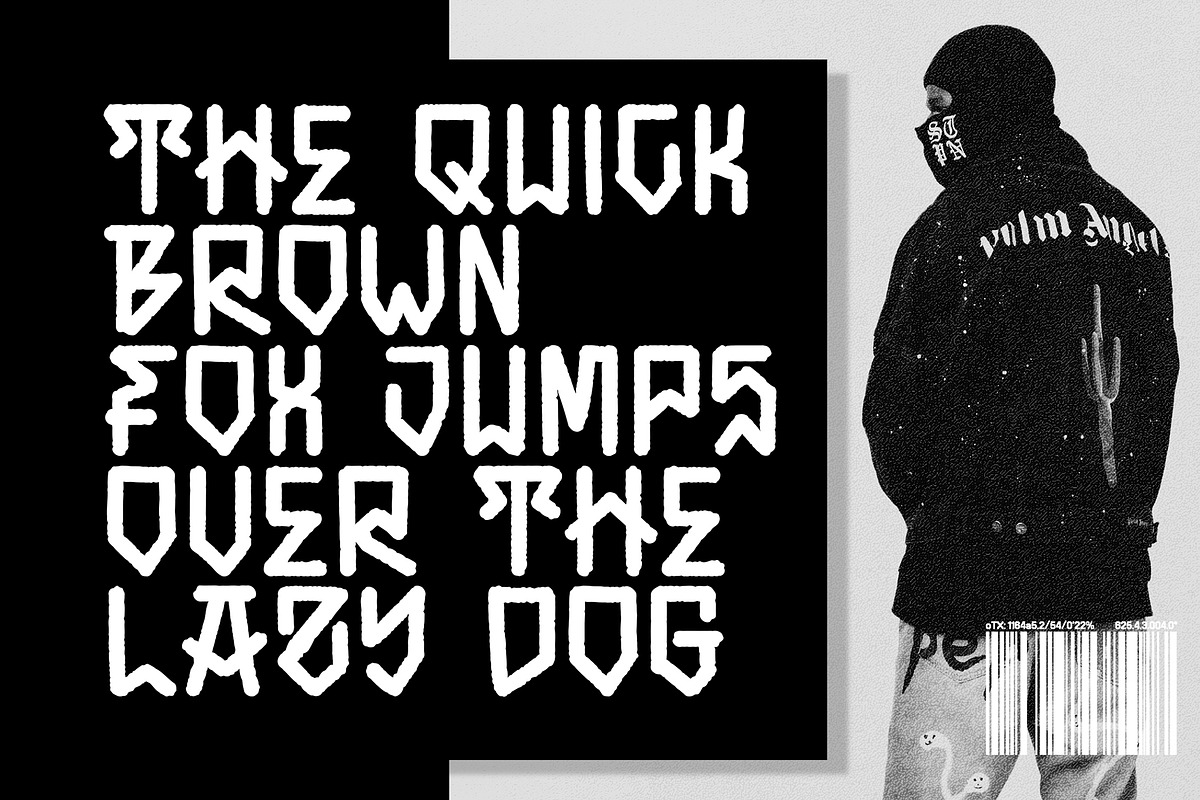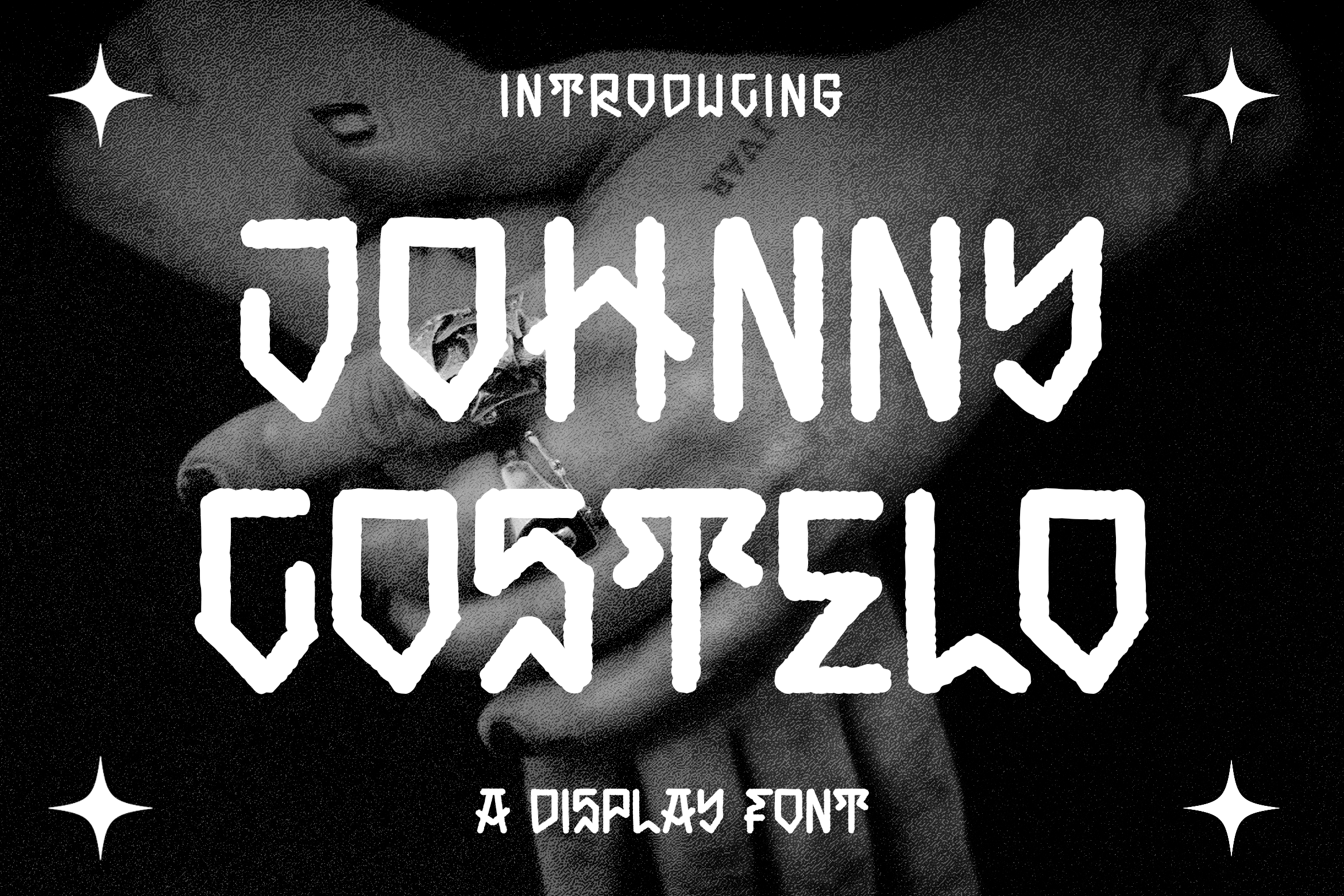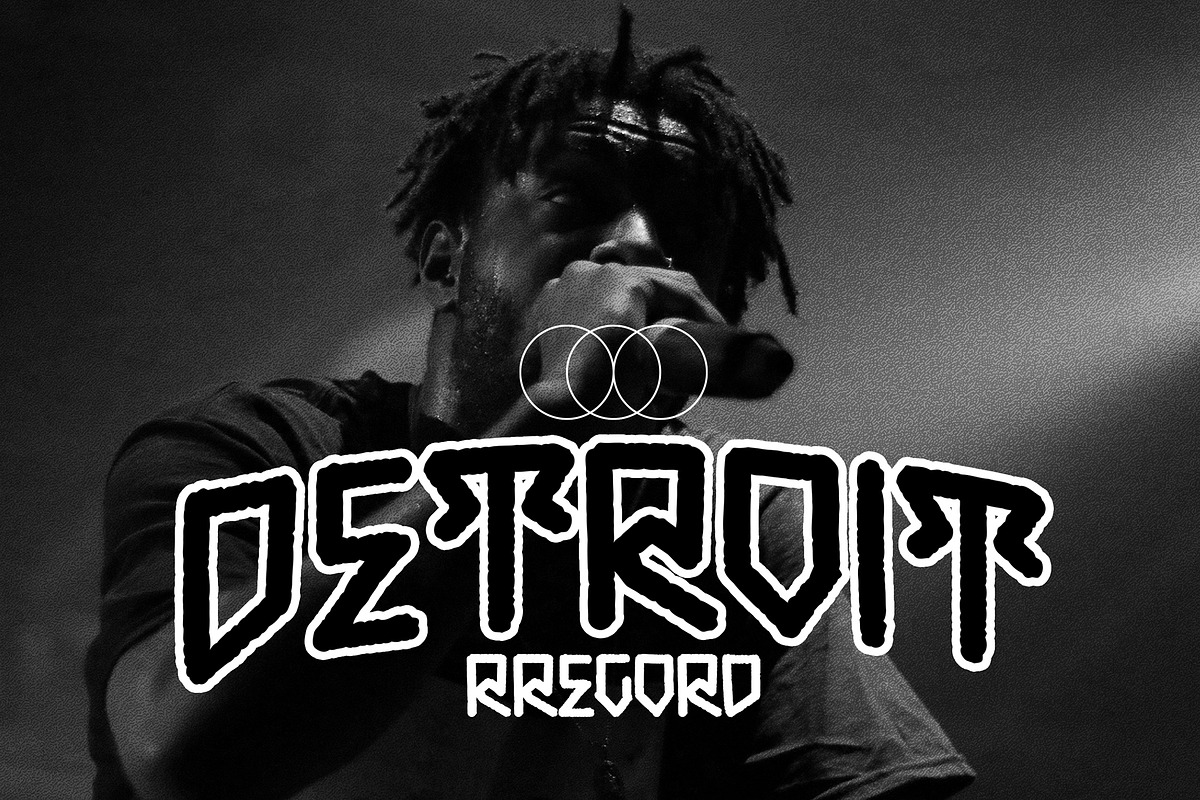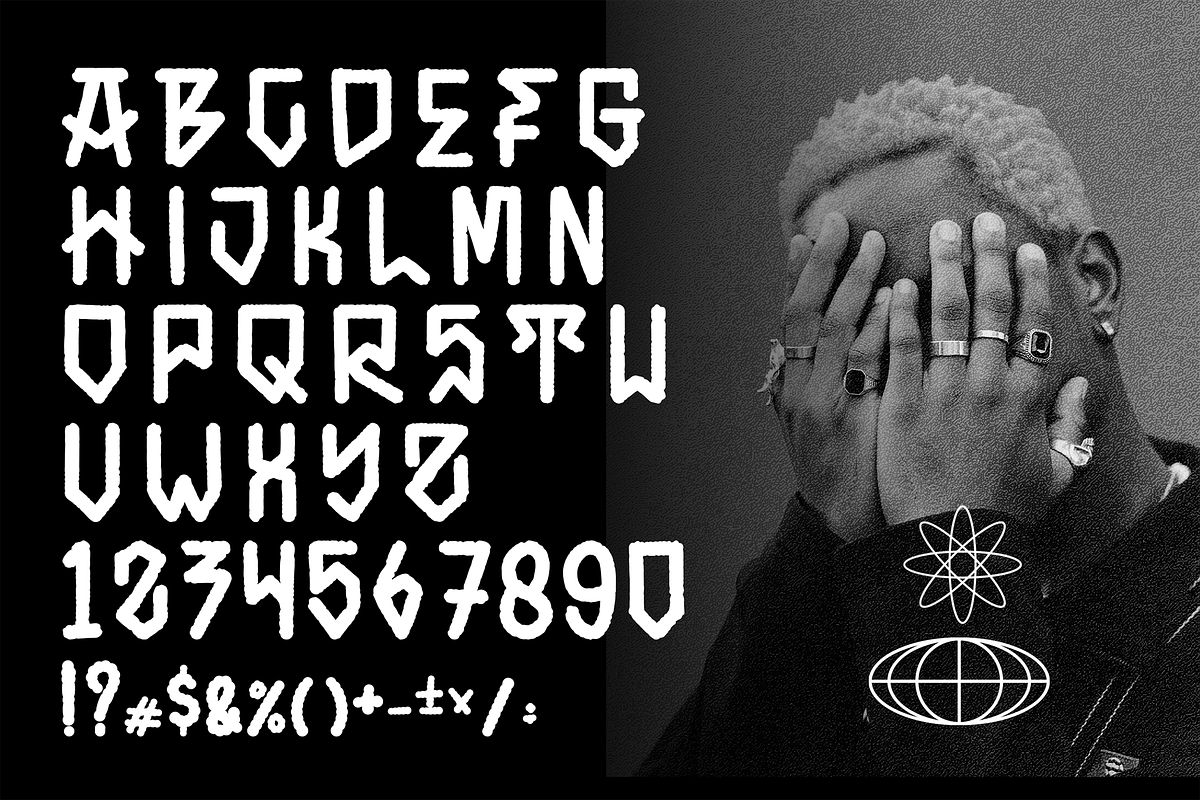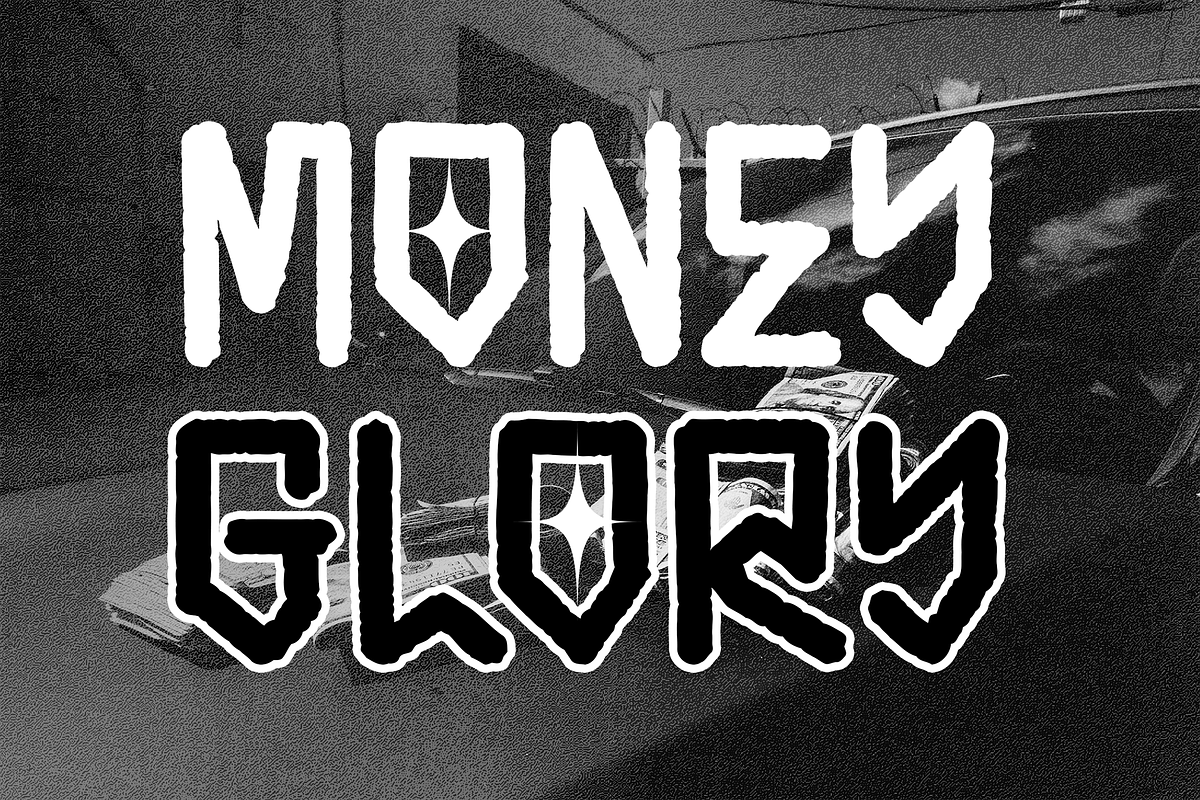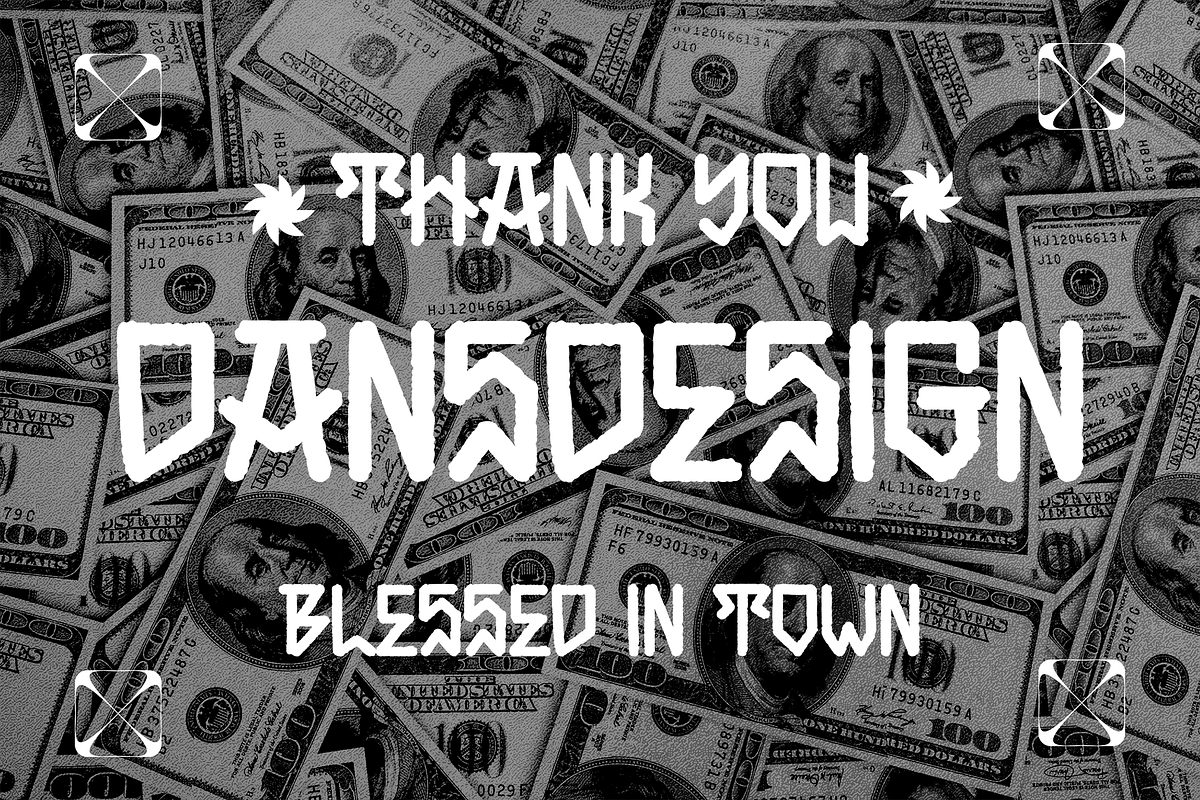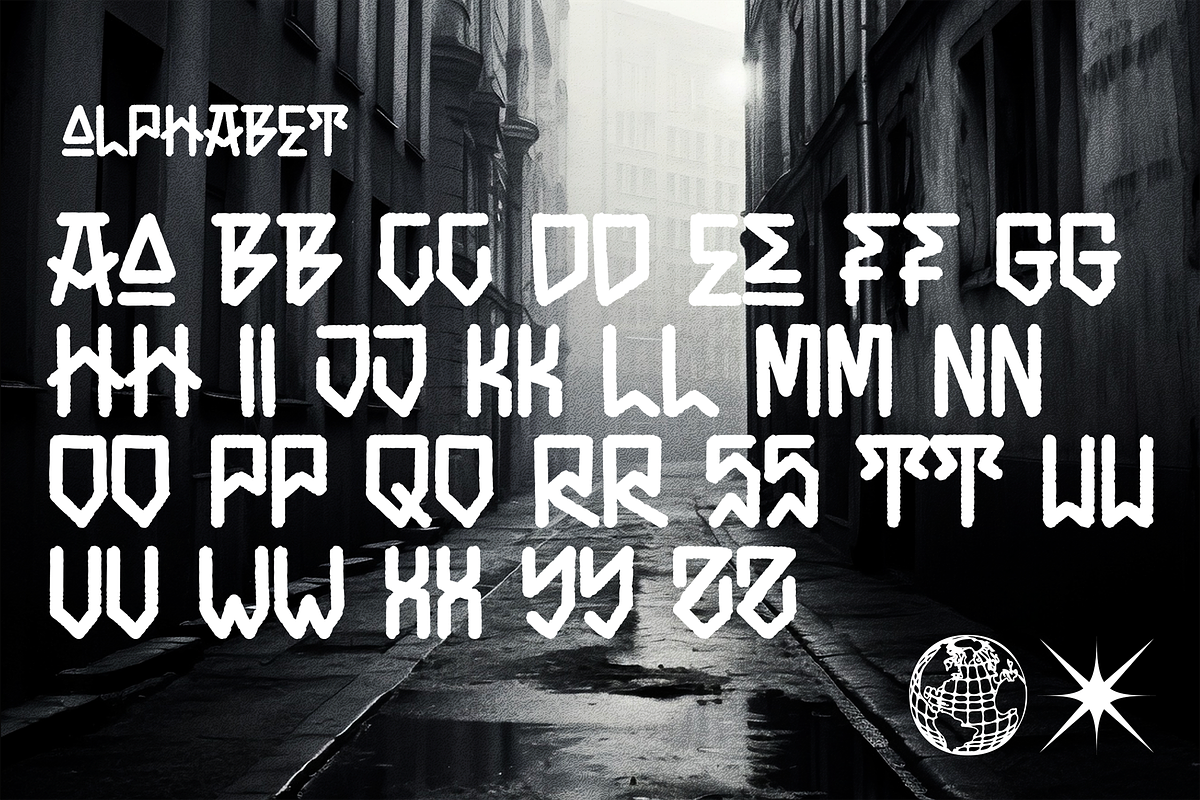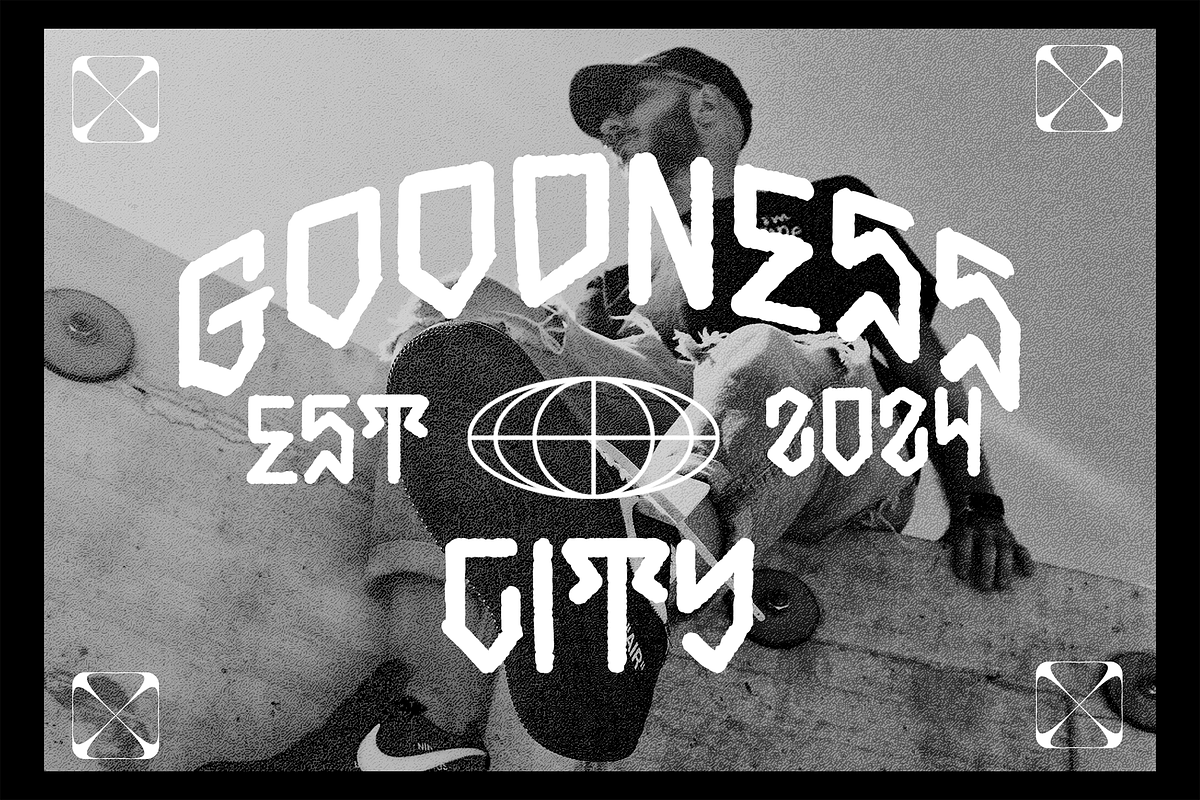
Johnny Castelo Display Font
Johnny Castelo Display Font highly detailed. Marker Display Font. It would make a great choice for exquisite retro-urban designs, business branding, logos, Apparel designs, and more.